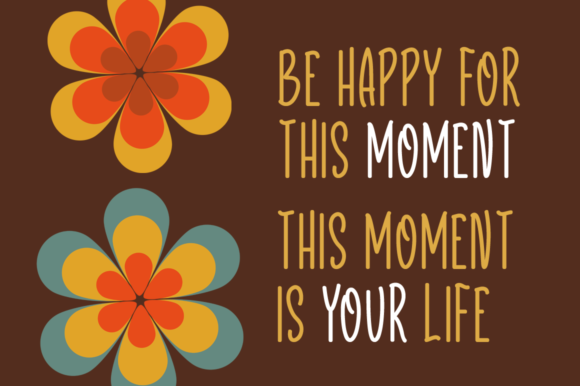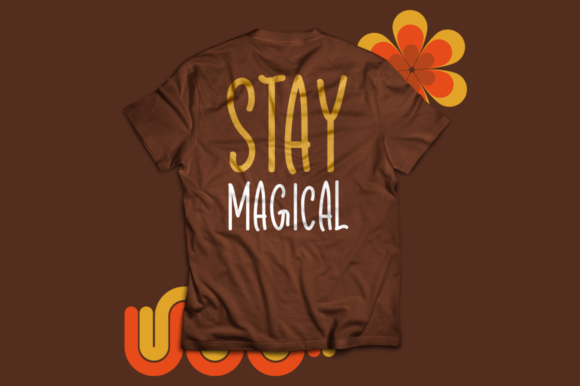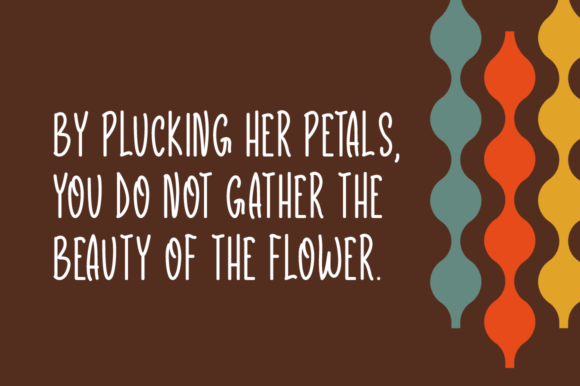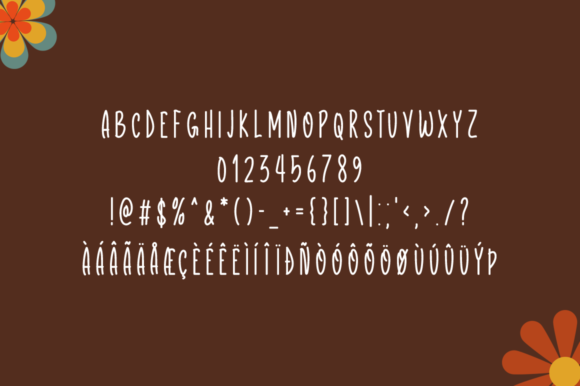
Introduction to Medioha Font
Have you ever been working on a creative project and struggling to find the perfect font to bring your vision to life? I know I have. It’s that moment of frustration when you’re staring at a blank page, wondering if you’ll ever find the perfect design resource to match your artistic intent.
Well, put your worries aside, because we’re excited to introduce you to the Medioha Font – a brand new, high-quality handwritten display font that’s sure to elevate your design game. With its beautiful, handwritten feel, this font is perfectly suited for a wide range of creative applications, from stationery and logos to print design and website headers.
Key Features of Medioha Font
- High-quality, unique design suitable for creative projects, including logos, branding, and marketing materials.
- Easy to customize and style, making it a versatile design resource for creative professionals.
- Part of the Medioha Font family, offering a range of matching fonts and styles for a cohesive design look.
Honest Review: Medioha Font
I recently stumbled upon the Medioha Font, and I must say it’s been a pleasant surprise. As a designer, I’m always on the lookout for high-quality design resources to elevate my creative projects. This font is definitely a great addition to my collection.
- ✨ The Medioha Font has a unique and stylish design that’s perfect for modern creative projects.
- ✨ It’s incredibly versatile and can be used for a wide range of applications, from headings to body text.
- ⚠️ The Medioha Font may not be suitable for very formal or traditional designs, as its modern style may not fit the aesthetic.
- ⚠️ Some users may find the font a bit too bold or attention-grabbing, so it’s essential to use it judiciously.
Overall, I’m impressed with the Medioha Font. Its high quality and versatility make it a valuable asset for any designer’s toolkit. If you’re looking for a modern, stylish font for your creative project, the Medioha Font is definitely worth checking out.
Tips for Getting the Most Out of Medioha Font
To get the most out of the Medioha Font, use it on a transparent background to create a clean and modern look. You can also experiment with different font sizes and styles to add visual interest to your design.
The Medioha Font is perfect for a variety of creative projects, including logos, branding materials, and marketing materials. It’s also great for creating quotes, social media posts, and other text-based designs.
Compared to Medioha Font, Great Vibes has a more refined and polished appearance, making it suitable for high-end design applications. While Medioha Font has a more playful feel, Great Vibes is better suited for formal events or premium branding.